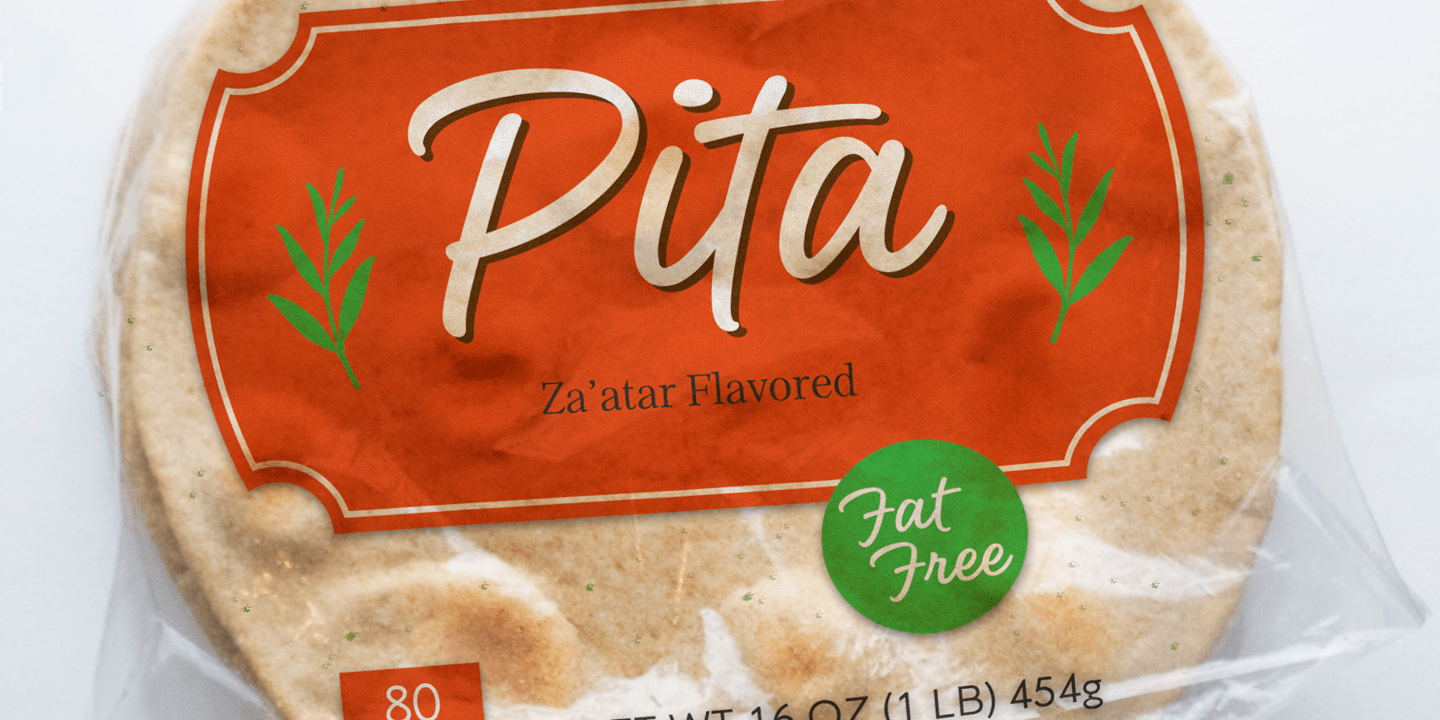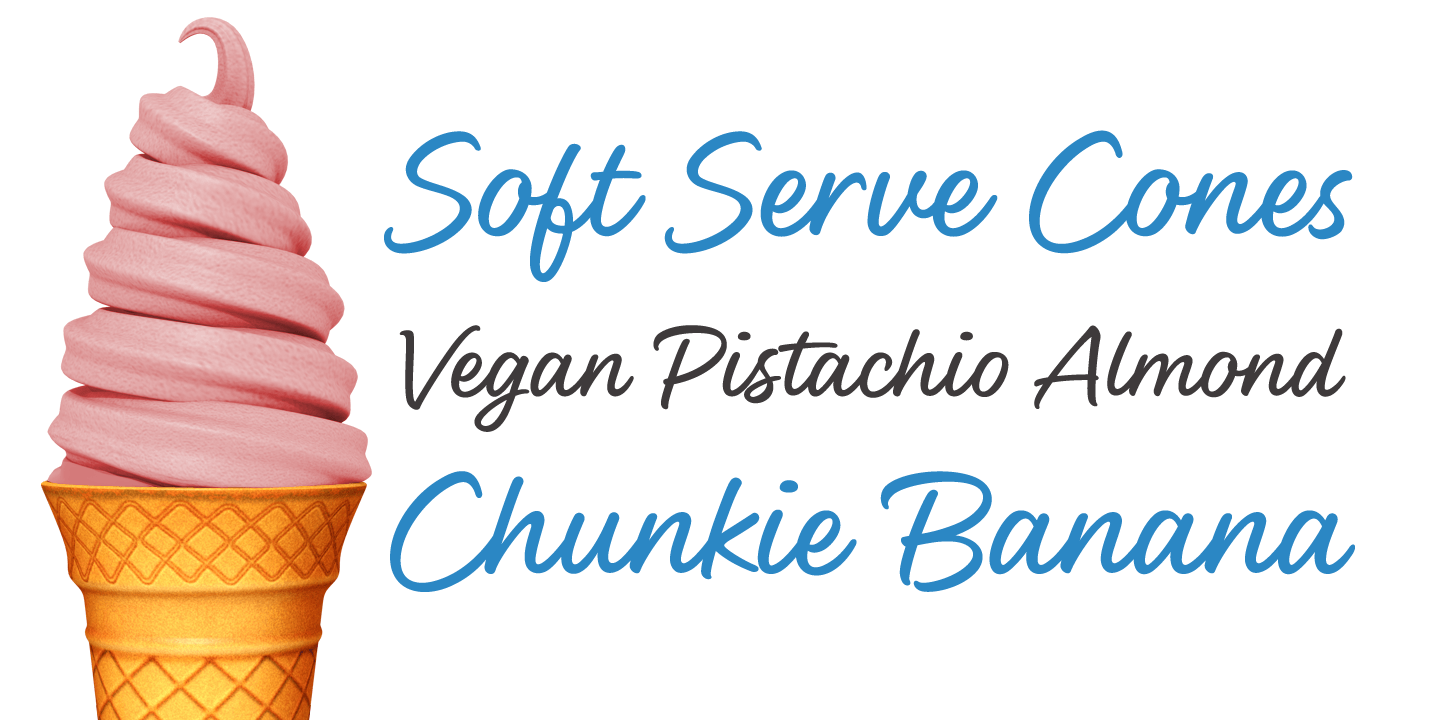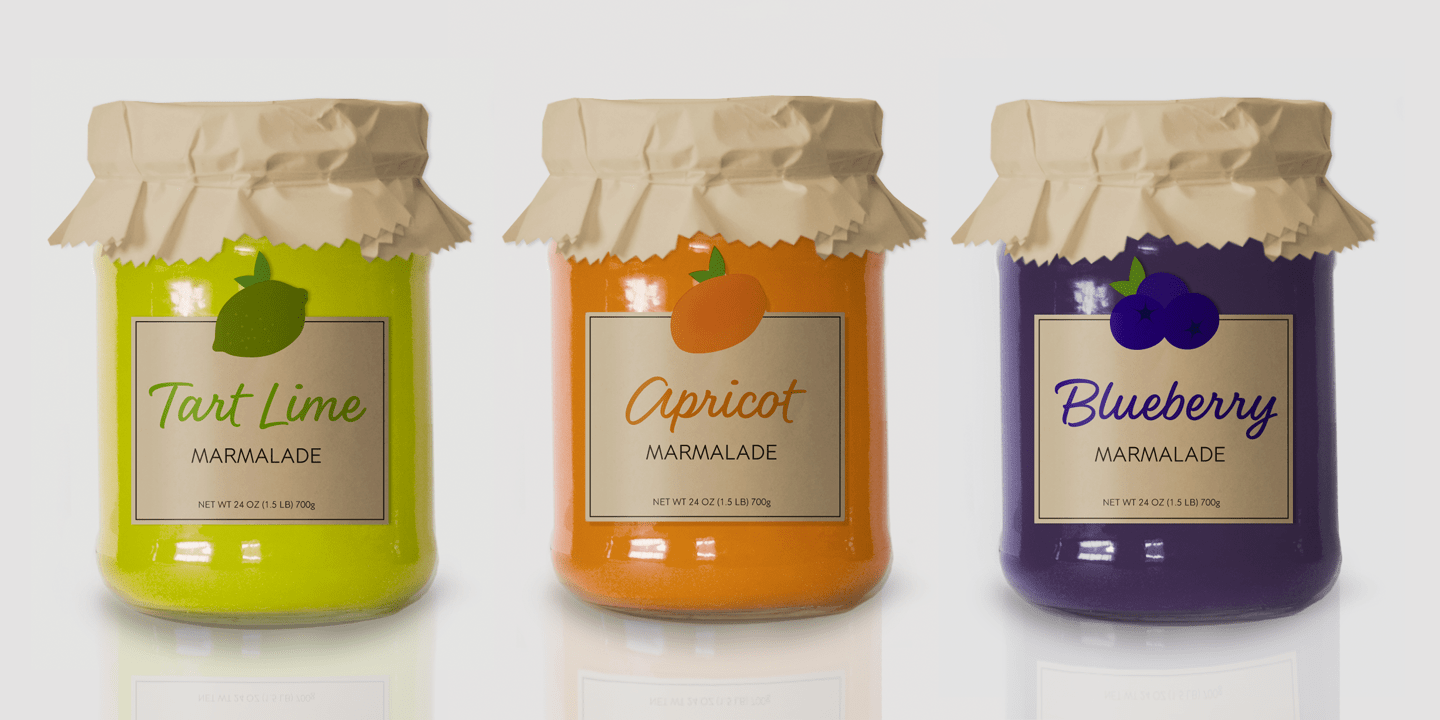
About Enticing Script
Enticing Script is a clean, modern and versatile script face that was designed specifically for packaging design but will fit in just about anywhere. It comes complete with many alternates for the upper and lower case and plenty of opentype features…